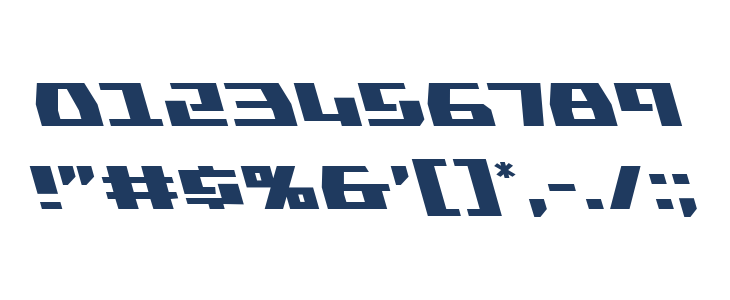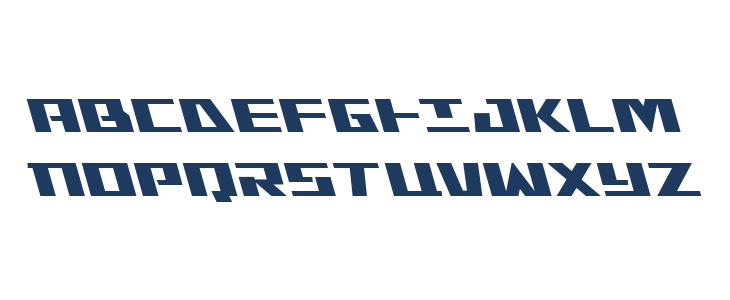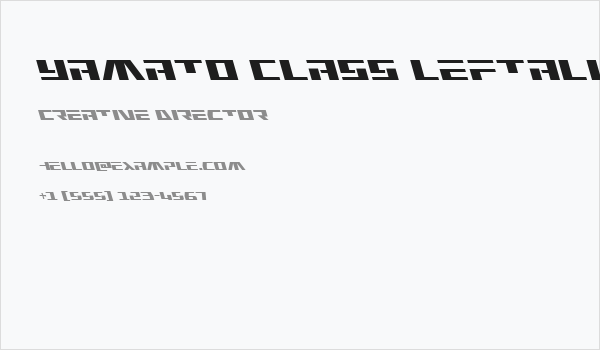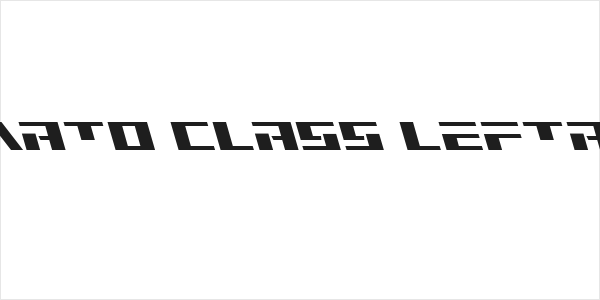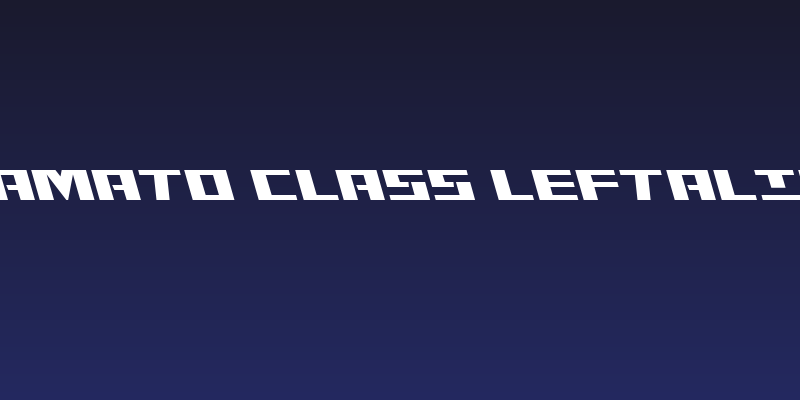
Yamato Class Leftalic Font
Yamato Class Leftalic Description
A bold, angular display typeface with a futuristic and geometric design, featuring sharp edges, heavy weight, and a pronounced leftward italic slant. The characters are wide with tight spacing and low contrast, giving a strong, impactful appearance suitable for attention-grabbing uses.
| Overall Style | Futuristic, Decorative |
| Proposed Projects | Video game titles, sci-fi posters, branding for tech products, event flyers, sports logos. |